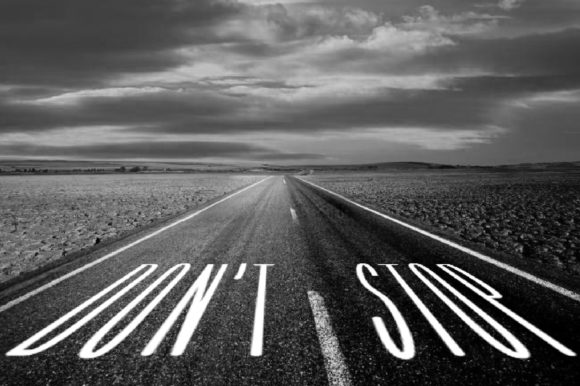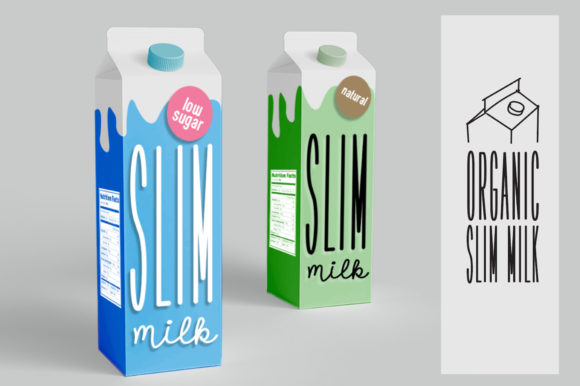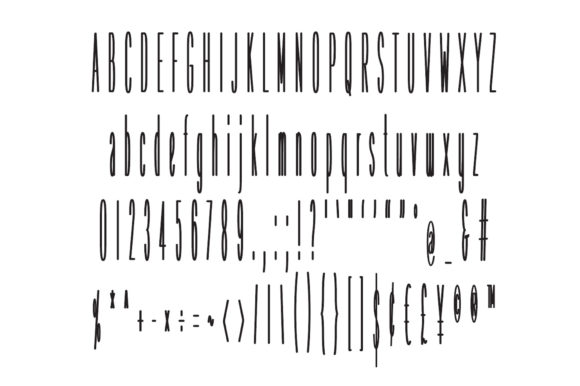
Introduction to Slender Font
You know that moment when a design comes together, and everything feels just right? The colors, the shapes, the text – it all blends together in perfect harmony. But what if I told you there’s one simple element that can elevate your design from good to great? Enter the Slender Font, a sleek and modern sans serif font that’s perfect for adding a touch of sophistication to your creative project.
With its high-quality design and transparent background, the Slender Font is a valuable resource for designers looking to take their work to the next level. Whether you’re working on a logo, a brochure, or a website, this versatile font can help you create a cohesive and professional look that’s sure to impress. And the best part? It’s a free download, making it an accessible design resource for creatives of all levels.
Key Features of Slender Font
- High-quality sans-serif font with a modern aesthetic, ideal for creative projects and designs.
- Available in a transparent background option, allowing for seamless integration with any design resource.
- Includes 6 styles, ranging from Thin to Black, offering flexibility for designers to customize their designs.
- Designed with a focus on legibility and readability, making it perfect for body text and headlines in creative projects.
Honest Review: Slender Font
As a designer, I’m always on the lookout for high-quality fonts that can elevate my creative projects. Recently, I had the chance to try out the Slender Font, and I must say, it’s a great addition to my design resource collection.
Here are some things that I really like about the Slender Font: ✨
- Unique aesthetic: The Slender Font has a distinct, modern look that’s perfect for creative projects.
- High-quality design: The font is well-crafted, with clean lines and a professional feel.
- Transparent background: This allows for seamless integration with other design elements.
However, there are a few limitations to consider: ⚠️
- Limited character set: The Slender Font may not be suitable for projects that require a wide range of characters.
- Not ideal for small text: The font may be difficult to read at small sizes.
Overall, I’m impressed with the Slender Font. It’s a great resource for designers who need a unique and high-quality font for their creative projects. And the best part? It’s available for free download!
Slender Font
The Slender Font is a high-quality, minimalist design resource ideal for creative projects. Its unique and elegant design makes it a perfect choice for various applications.
Tips for Getting the Most Out of Slender Font
To get the most out of the Slender Font, use it in combination with a transparent background to create a clean and elegant design. You can also experiment with different font sizes and styles to achieve the desired effect.
The Slender Font is ideal for various applications, including branding, marketing materials, and creative projects. Its unique design makes it a perfect choice for designers looking for a high-quality design resource.